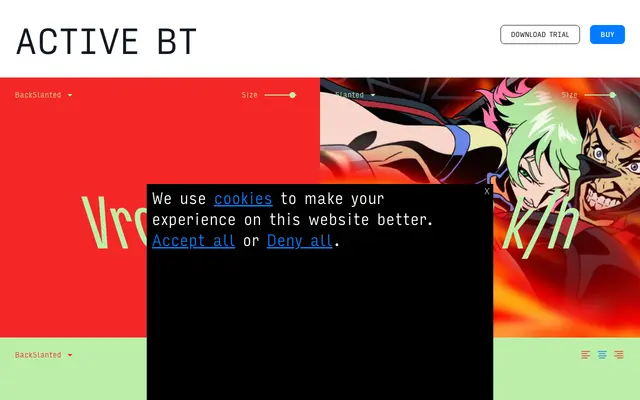
Active BT
A three-style display typeface offering Regular, Slanted and BackSlanted cuts, built around kinetic energy and motion-oriented aesthetics.
The family's three cuts — Regular, Slanted and BackSlanted — give designers directional contrast within a single typeface, useful for posters, headlines and screen work where speed or tension is the visual language. The character set covers extended Latin, including Central and Eastern European diacritics. Preview copy referencing the 2009 animated film Redline signals the intended register: fast, aggressive, subcultural.
A high-energy display sans with three style variants including a back-slanted cut, designed for kinetic and action-oriented typographic contexts rather than extended reading.